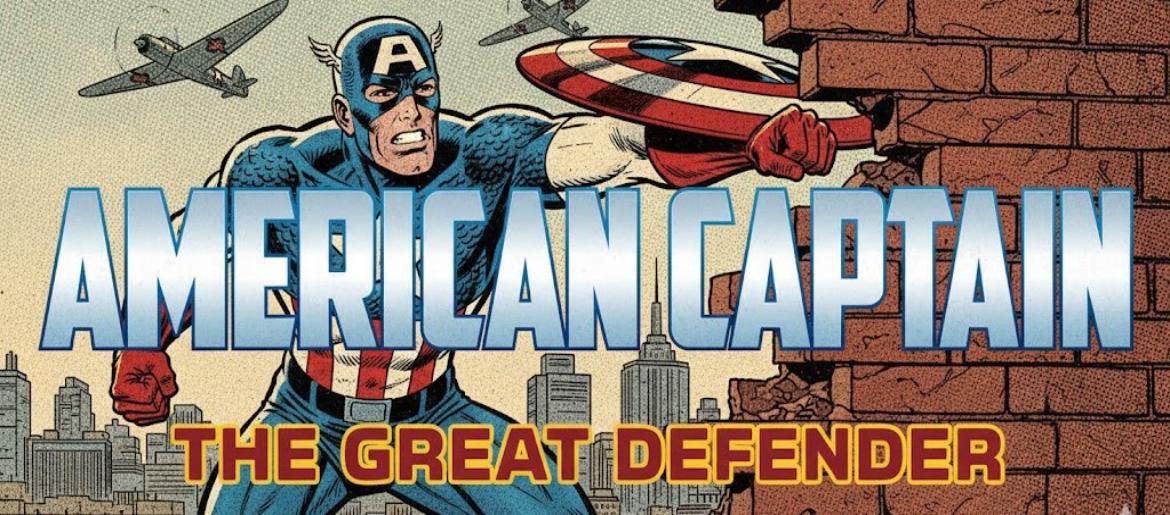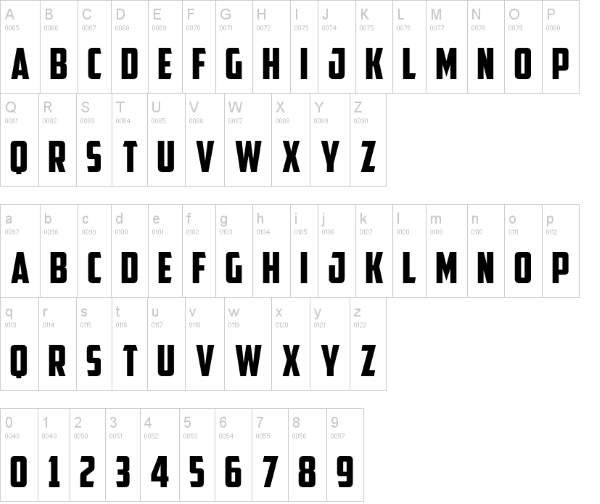
American Captain Font
American Captain font
American Captain Font is a bold, vintage-inspired display typeface with strong, blocky letterforms that evoke classic 1940s signage and heroic themes. Its tall, commanding presence makes it ideal for logos, posters, headlines, sports branding, and designs needing a confident, patriotic look.
➤ Font Name: American Captain
➤ Designer: Fontry
➤ Style: Retro